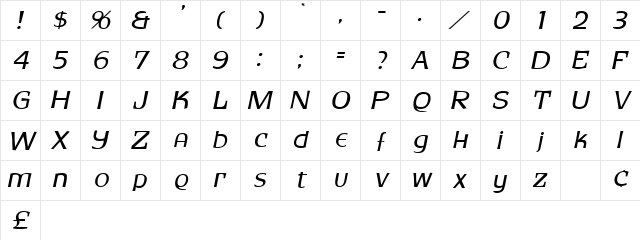
Rhubarb Oblique
Design Context for Rhubarb Typeface
Rhubarb offers clean, dependable letterforms without strong stylistic allegiance, making it a practical choice for designers who need flexibility. The dynamic lean of this cut emphasises speed and emphasis in any layout.
Pro Tip: Try Rhubarb for annotation and caption copy alongside an upright companion — the contrast in angle creates a dynamic but ordered typographic system.